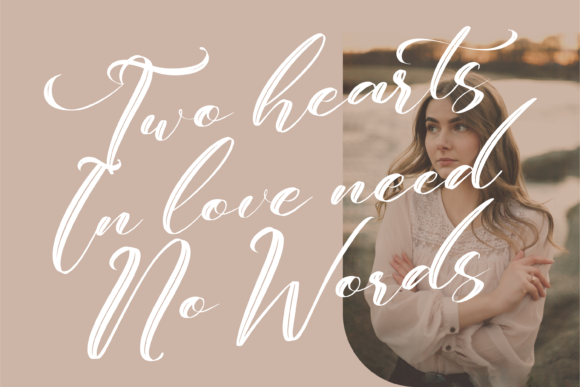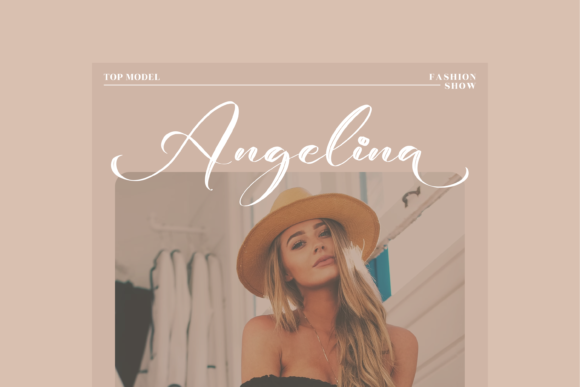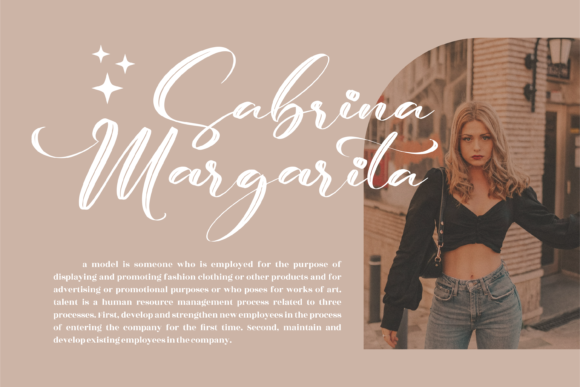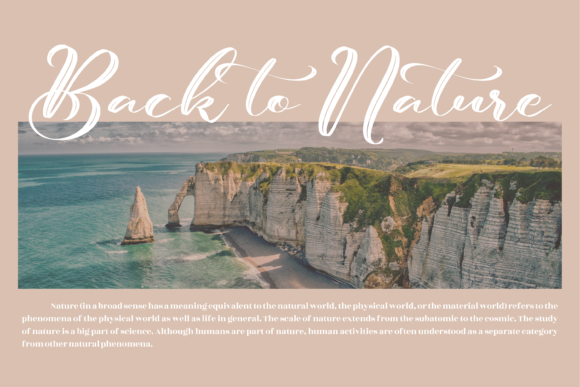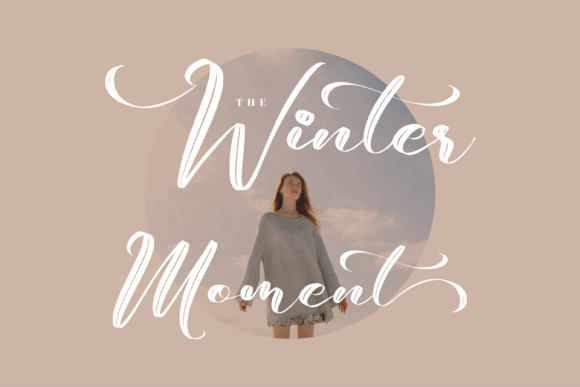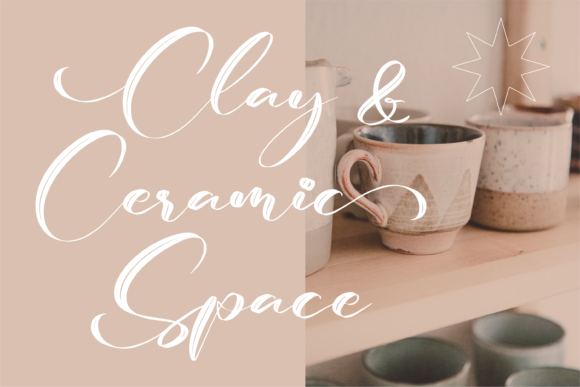
Introducing Delysha Font: The Perfect Script Font for Your Creative Projects
Are you a designer or crafter looking for a beautiful script font to elevate your creative projects? Look no further than Delysha Font! This stunning script font is suitable for a wide range of projects, from logos and branding to homeware designs, product packaging, and more.
What is Delysha Font?
Delysha Font is a beautiful script font that is perfect for adding a touch of elegance and sophistication to your designs. Its flowing lines and curves make it ideal for projects that require a personal and creative touch. Whether you’re working on a logo, brochure, or social media graphics, Delysha Font is sure to impress.
What Can I Use Delysha Font For?
Delysha Font is incredibly versatile and can be used for a wide range of projects, including:
- Logos and branding projects: Create a lasting impression with a custom logo that showcases your brand’s personality.
- Homeware designs: Add a touch of elegance to your home decor with custom wall art, throw pillows, and more.
- Product packaging: Stand out on store shelves with eye-catching packaging that features Delysha Font.
- Mugs and ceramics: Create personalized gifts or promotional items with Delysha Font.
- Quotes and posters: Add a touch of inspiration to your walls with beautifully designed quotes and posters.
- Shopping bags and t-shirts: Create custom apparel and accessories that showcase your brand’s style.
- Book covers and name cards: Add a touch of sophistication to your book covers and name cards.
- Invitation cards and greeting cards: Create beautiful and personalized cards for special occasions.
- Labels and photography: Add a touch of elegance to your labels and photography with Delysha Font.
- Watermark and special events: Use Delysha Font to create custom watermarks and event branding.
Why Choose Delysha Font?
So why choose Delysha Font for your creative projects? Here are just a few reasons:
- Unique and elegant design: Delysha Font features a unique and elegant design that is sure to stand out.
- High-quality and versatile: Delysha Font is a high-quality font that can be used for a wide range of projects.
- Easy to read and use: Delysha Font is easy to read and use, making it perfect for designers and crafters of all levels.
- Perfect for creative projects: Delysha Font is perfect for creative projects that require a personal and creative touch.
Tips for Using Delysha Font
Here are a few tips for using Delysha Font in your creative projects:
- Experiment with different sizes and colors: Delysha Font looks great in a variety of sizes and colors, so don’t be afraid to experiment.
- Pair with other fonts: Delysha Font pairs well with other fonts, so try pairing it with a bold font for added contrast.
- Use for headlines and titles: Delysha Font is perfect for headlines and titles, but can also be used for body text.
- Add a personal touch: Use Delysha Font to add a personal touch to your designs, such as a custom signature or watermark.